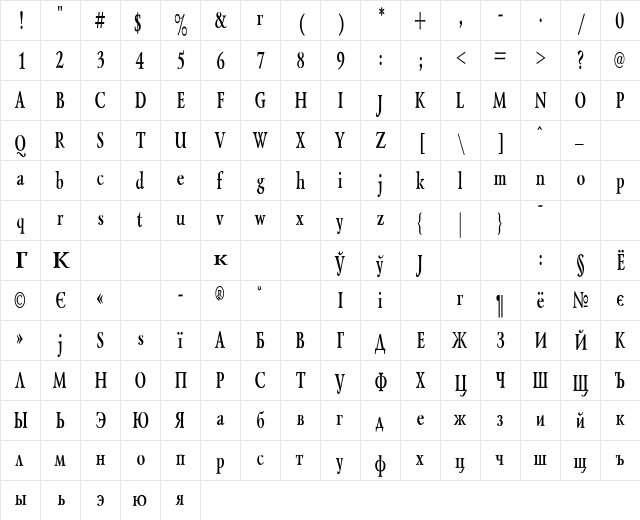
Alar C
Design Context for Alar Typeface
Alar takes a measured approach to typography — its balanced proportions and neutral character make it a reliable workhorse for both digital and print work.